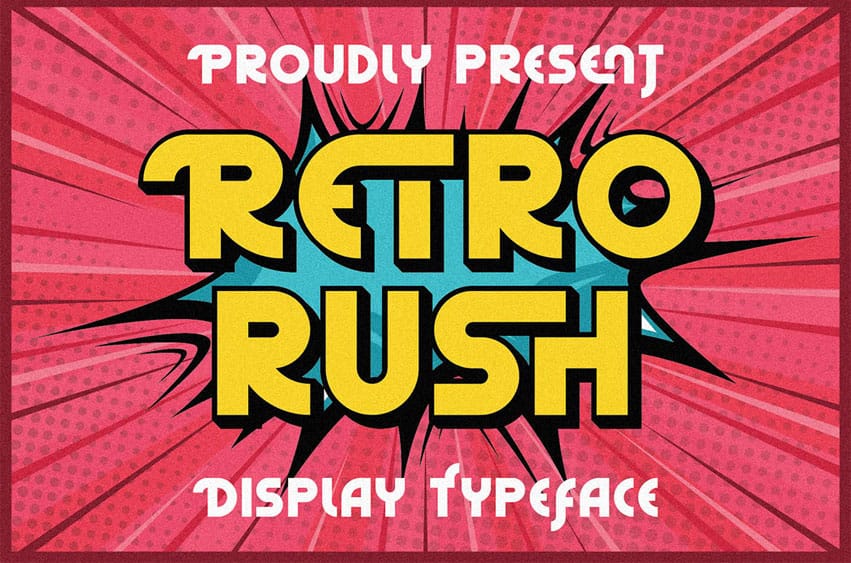
Retro Rush Font Unique, bold, retro, sharp, playful, clean & label sans serif font. Comes with multilingual support & a lot of ligatures and alternate characters + extruded (background) font version – great for your new logo, monogram or branding project.
- 2 font versions – regular & extruded
- Multilingual support & a lot of ligatures and alternate characters
- Great for your new logo, monogram, or branding project